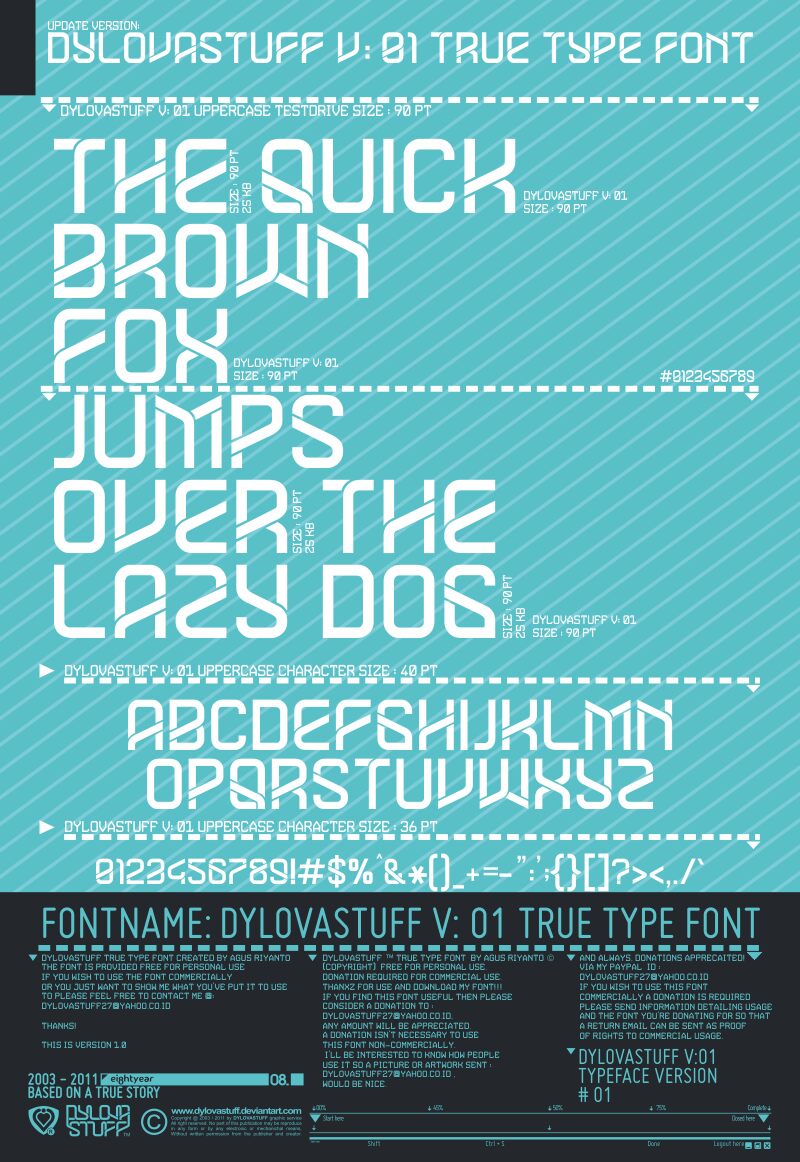
DYLOVASTUFF
Dylovastuff is a free techno display font with tall, engineered letterforms and a distinctly futuristic cut. Broad curves meet rigid verticals, and sharp diagonal breaks slice through many of the strokes. Its changing stroke widths keep the geometry from looking uniformly mechanical.
A gaming studio, electronics brand, or nightclub could use it for logos, packaging, and event posters with a sleek industrial edge. In science-fiction game graphics, the repeated cuts can turn a title or menu label into part of the interface itself.